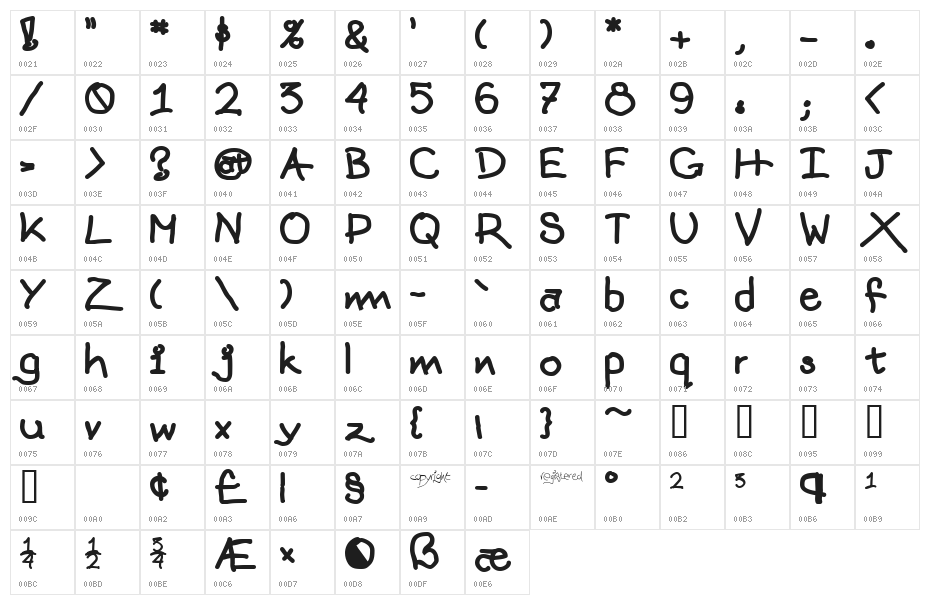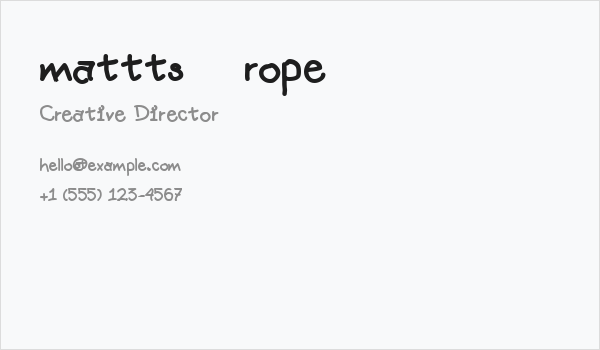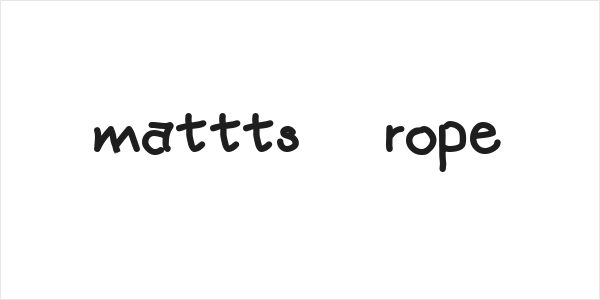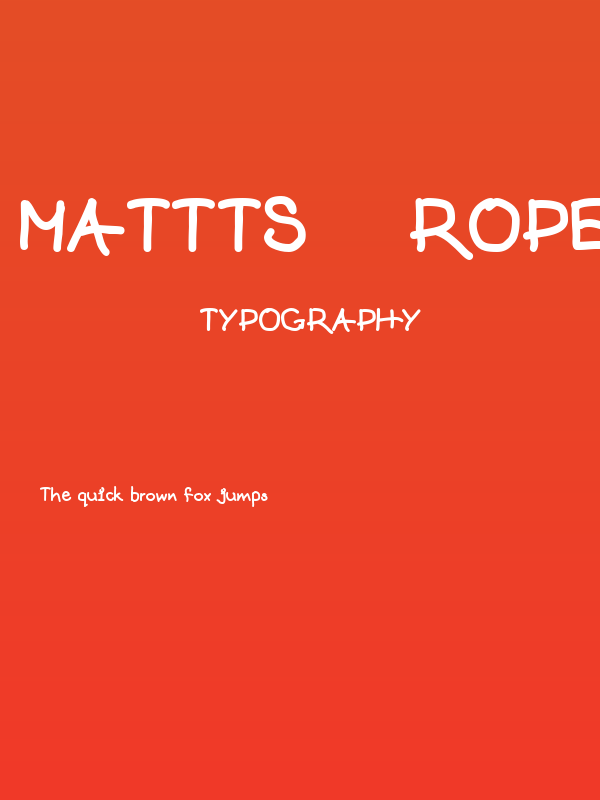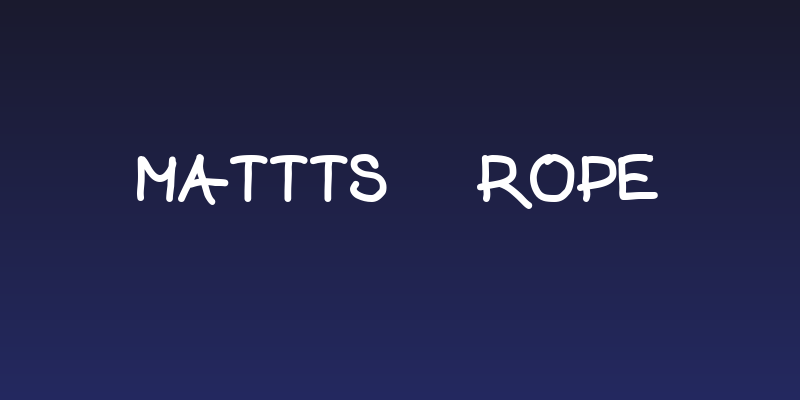
mattts rope Font
mattts rope Description
This playful and whimsical font features a hand-drawn style with a rope-like appearance. The characters are bold and rounded, giving them a friendly and approachable feel. The uppercase and lowercase letters maintain a consistent thickness, while the numbers and special characters are designed to match the overall aesthetic. The font's unique style is characterized by its uneven lines and slightly irregular shapes, reminiscent of handwriting. This adds a personal touch and a sense of creativity to any design project.
| Overall Style | Whimsical, Playful |
| Proposed Projects | Ideal for children's books, playful branding, greeting cards, and creative posters. |